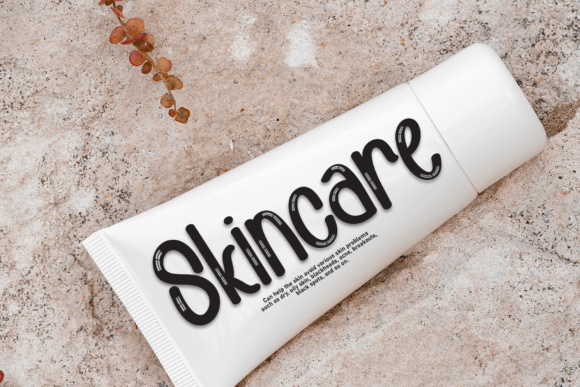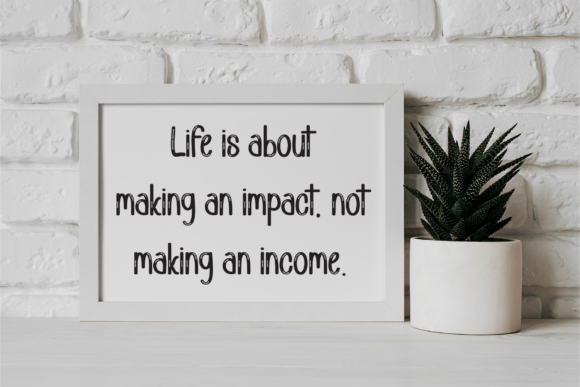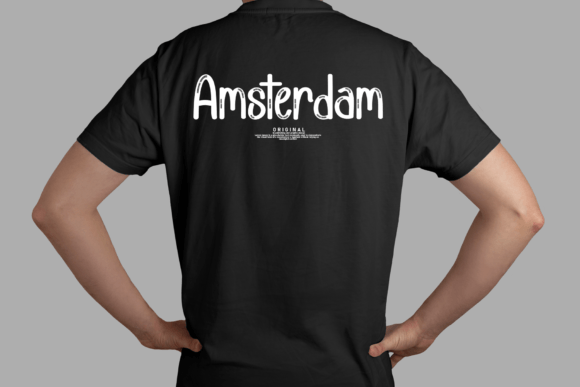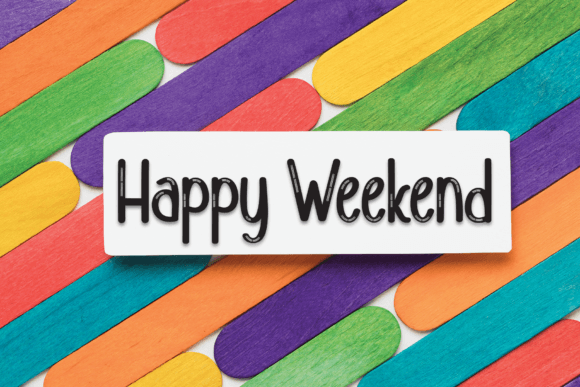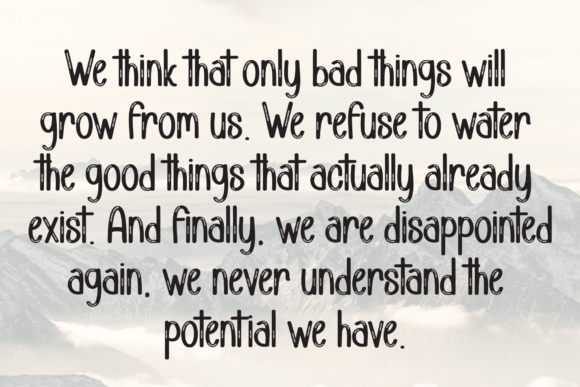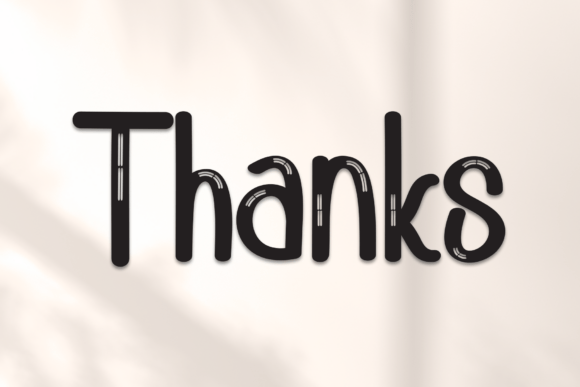
Introduction to Random Font
Introducing a charming and affectionate handwritten display font: a perfect blend of sweet and friendly aesthetics that exudes fun.
Purple with personality, this font is a versatile choice for creating captivating wedding invitations, heartfelt cards, or any design project craving a playful and vivacious touch Experience the delightful appeal and amiable vibe that this unique font brings to your creative endeavours.
Random Font offers exceptional quality and versatility, making it a valuable addition to your design toolkit. Whether you’re creating for personal projects or commercial use, Random Font delivers professional results.